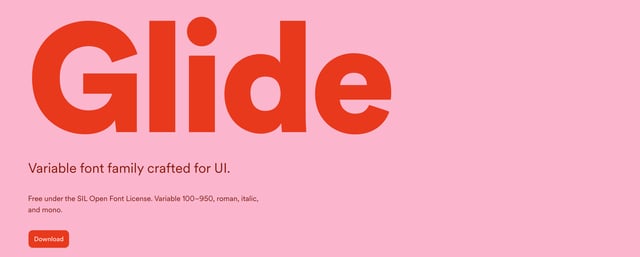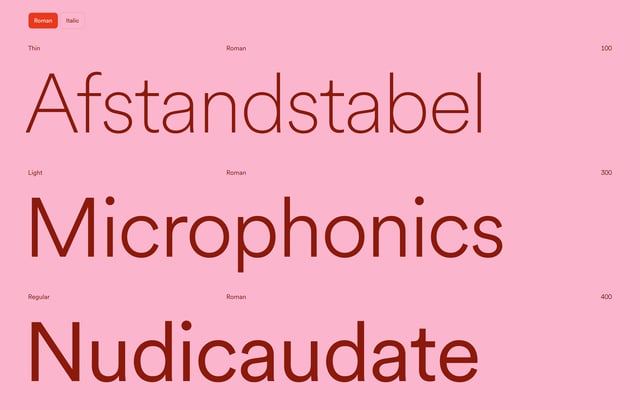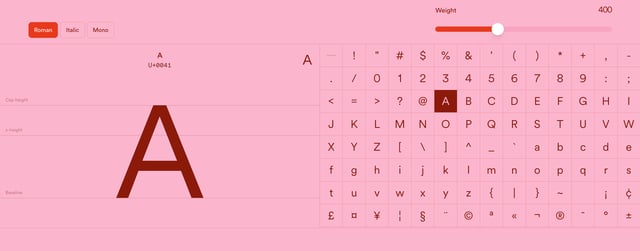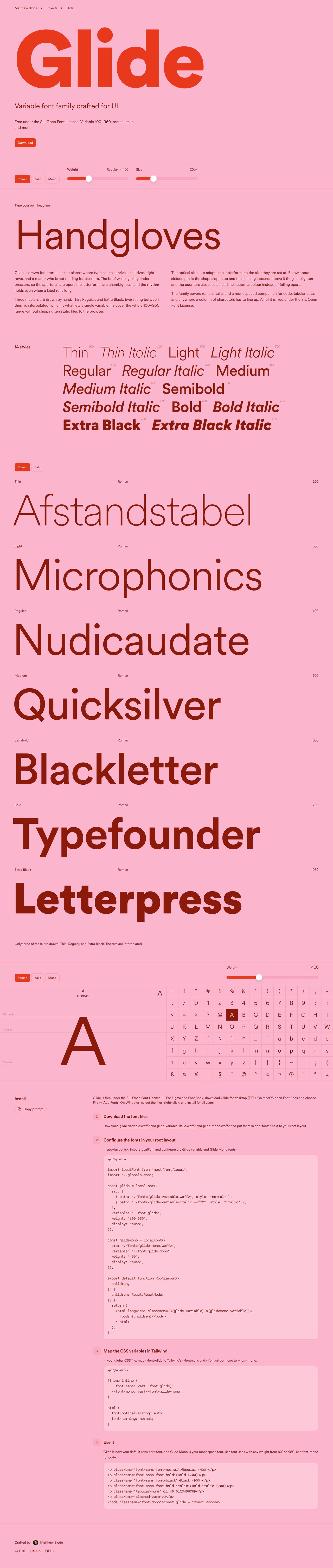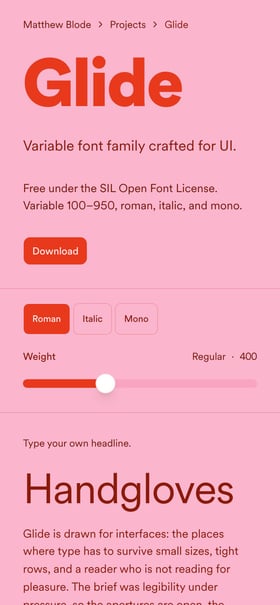
Glide Typeface
Matthew Blode
Glide is a variable UI sans-serif font offering roman, italic & monospaced versions across a broad range of weights. The website uses interactive editable text, weight and size sliders, a detailed glyph inspector and developer installation examples within a restrained pink-and-coral layout. We spotlighted this site in Love Letter #92.